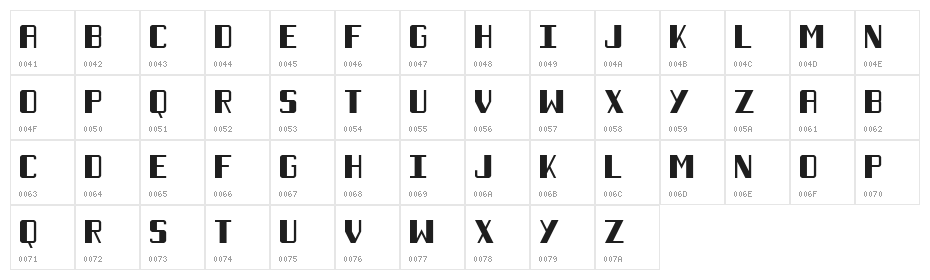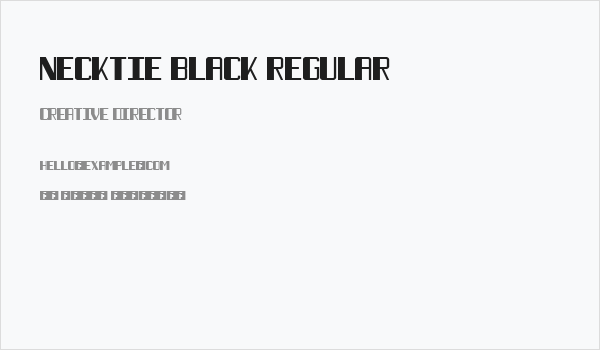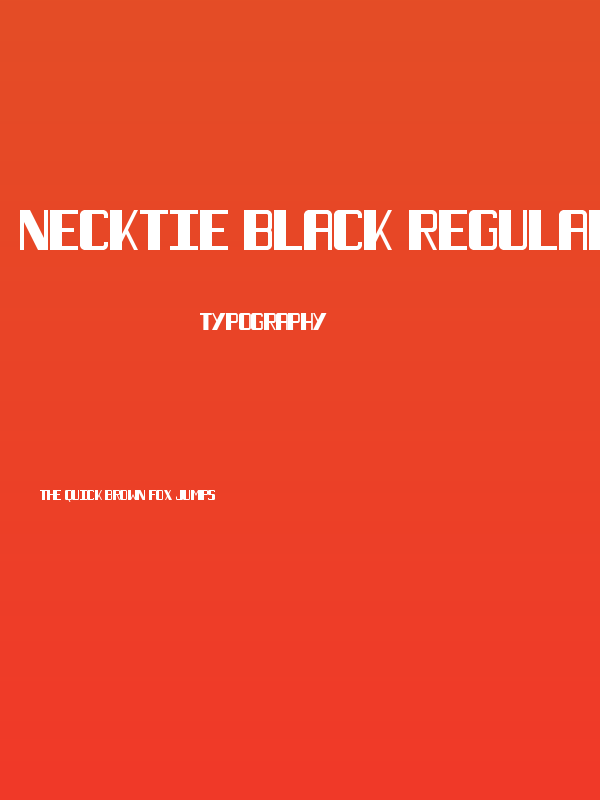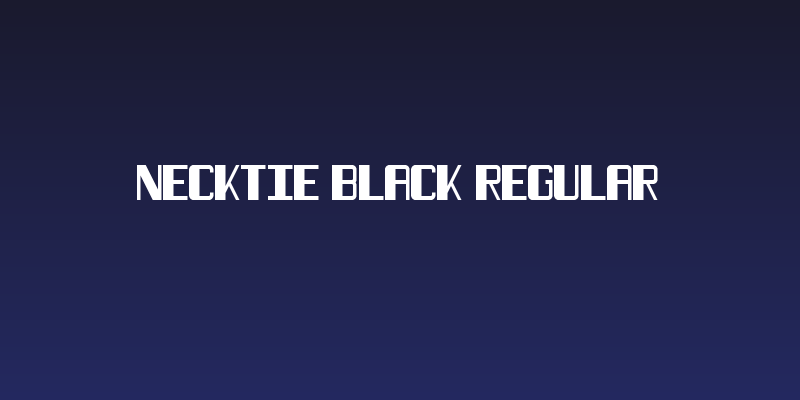
Necktie Black Regular Font
Necktie Black Regular Description
This font features a bold, geometric design with a modern edge. The characters are constructed with sharp angles and straight lines, giving it a strong, impactful presence. The uppercase letters are uniform in height, while the lowercase letters maintain a consistent style that complements the uppercase. The numbers and special characters follow the same geometric theme, ensuring a cohesive look across all text. The font's design is both striking and versatile, making it suitable for a variety of applications where a bold statement is desired.
| Proposed Projects | Ideal for branding, posters, headlines, and any design project requiring a strong visual impact. |